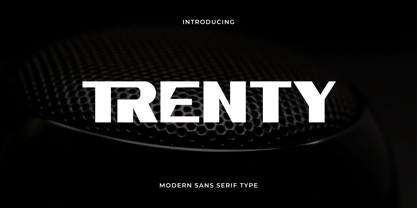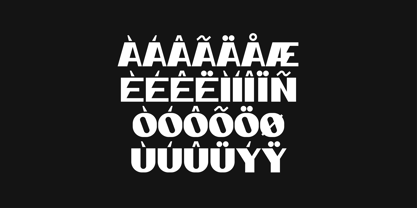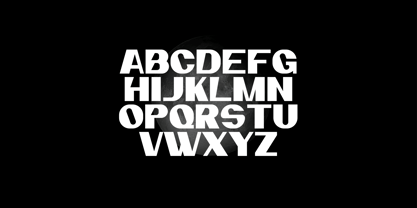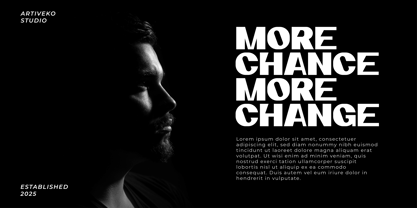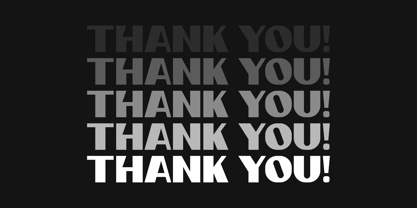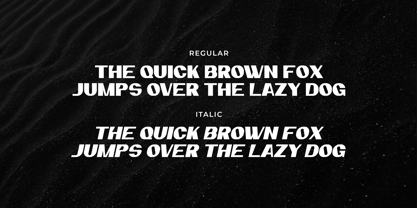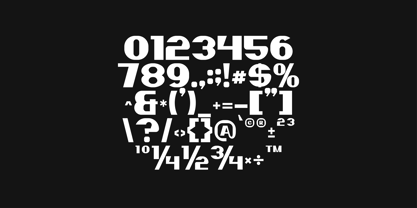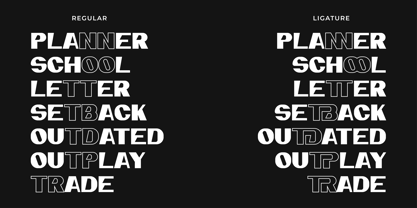
Trenty
by Artiveko
The Trenty Font Family was designed by Iwan Alwan and published by Artiveko. Trenty contains 2 styles and family package options.
Trenty is a bold and strong display sans serif font crafted to make a statement. With thick strokes and assertive shapes, it’s perfect for headlines, posters, branding, and modern advertising. Equipped with multilingual support, ligatures, and alternates, Trenty brings power and style to designs that demand attention and impact.